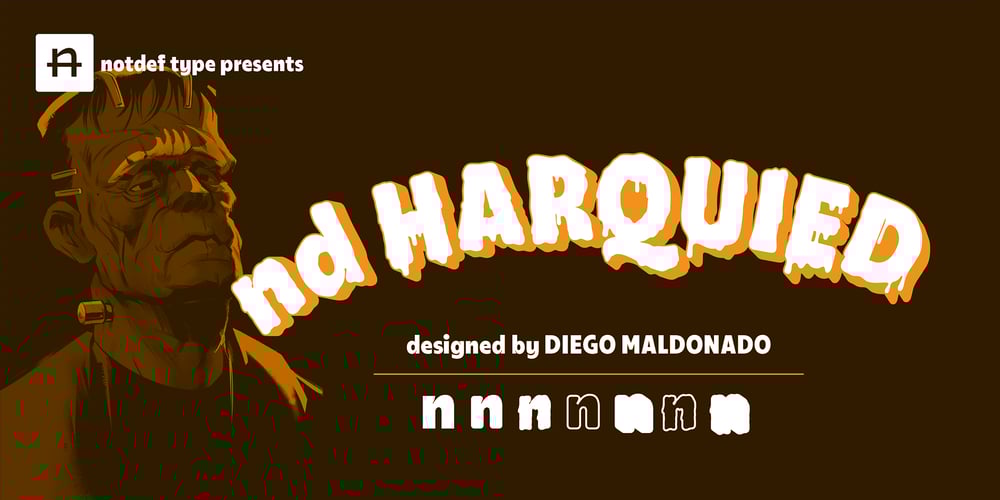
Nd Harquied Font Family was designed by Diego Maldonado and published by Notdef Type. Nd Harquied contains 7 styles and family package options. What about some spooky type? Nd Harquied is great for Halloween, Comics, Monsters, or maybe something that you came up with melting cheese! How creative can you be?